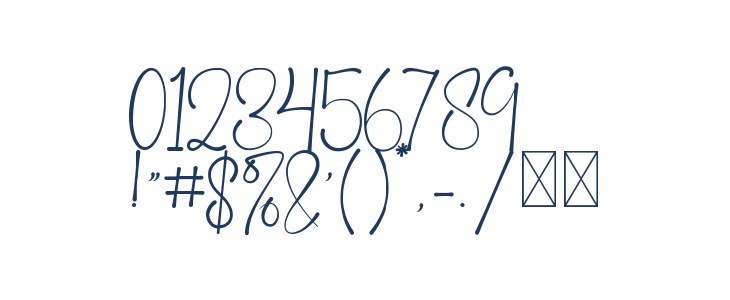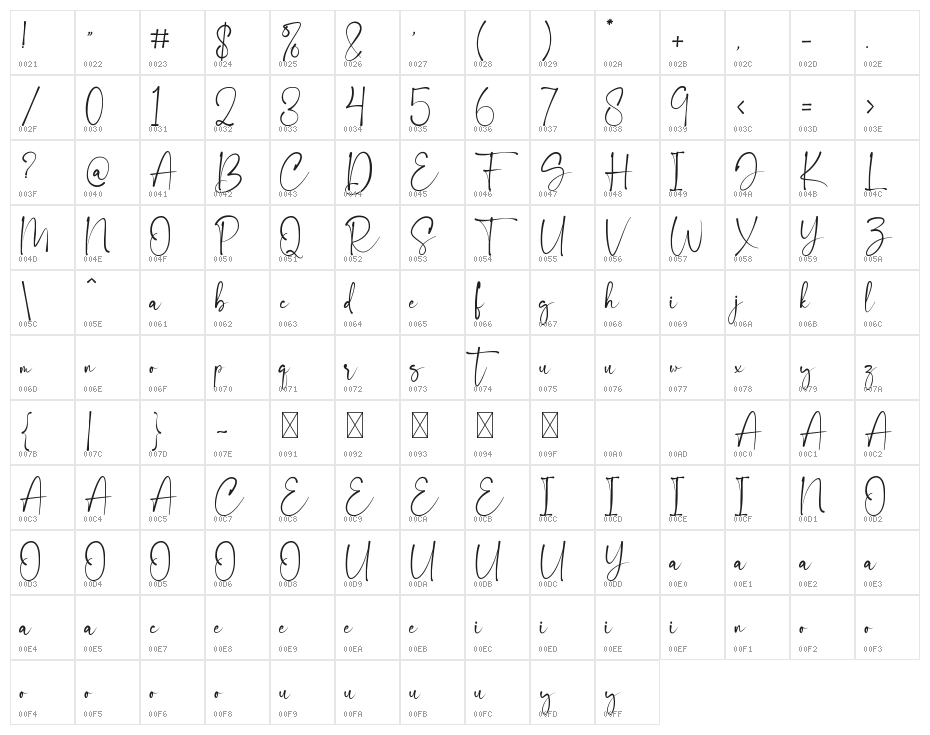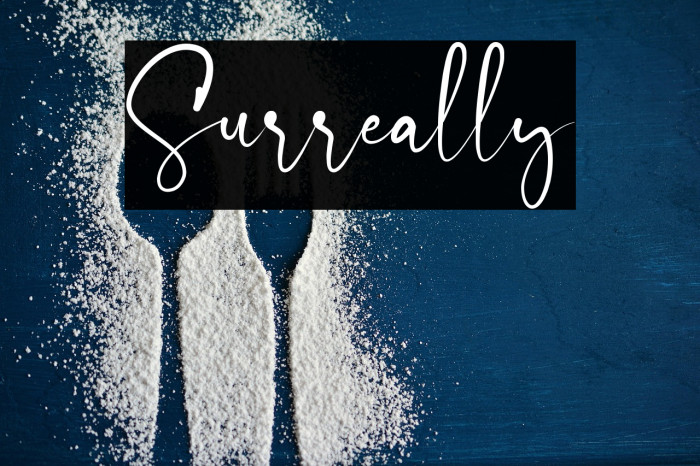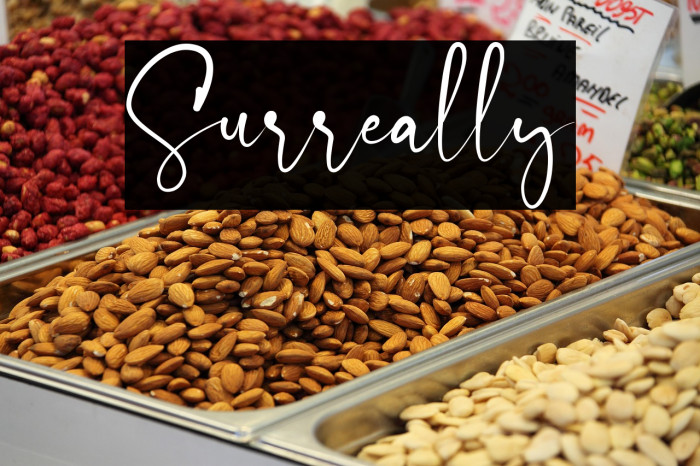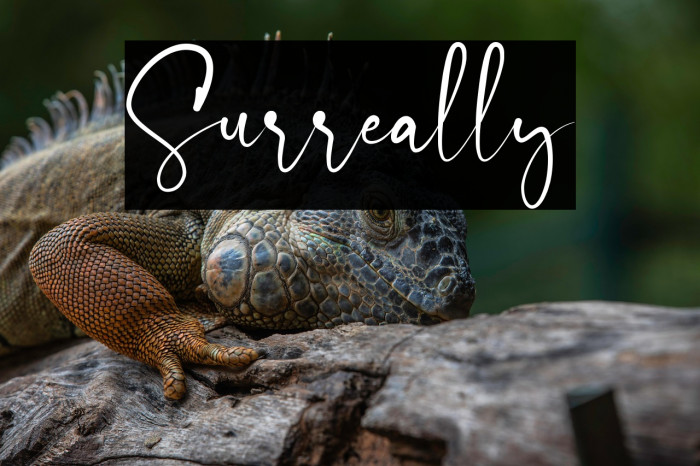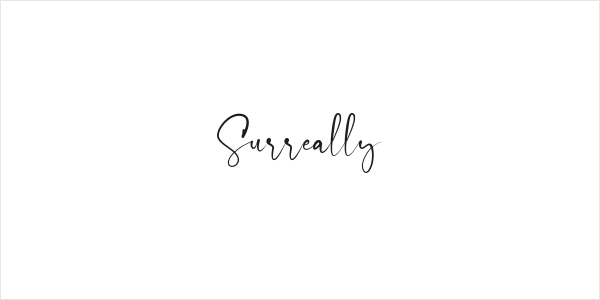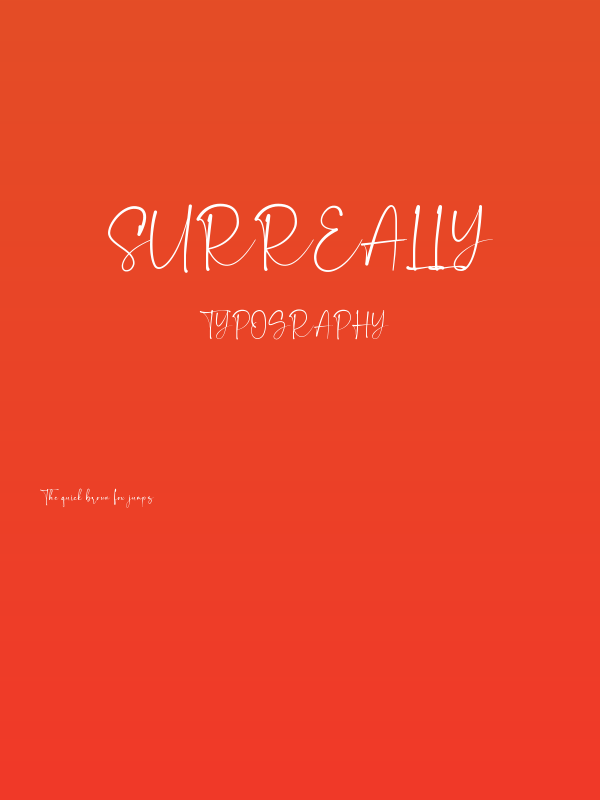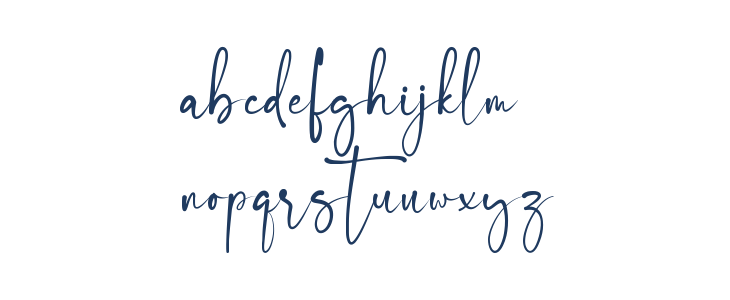
Surreally Font
Surreally Description
This font features a whimsical and artistic script style, characterized by its flowing, interconnected letters and playful loops. The uppercase letters are tall and elegant, with a slight slant that adds a dynamic feel. The lowercase letters maintain a consistent style, with some characters extending below the baseline, adding to the font's charm. Numbers are crafted with the same artistic flair, ensuring a cohesive look across all characters. Special characters are included, each designed with the same attention to detail and creativity. The overall appearance is both sophisticated and approachable, making it suitable for a variety of creative projects.
| Use Case | Logos, Invitations, Artistic designs |
| Proposed Projects | Ideal for wedding invitations, greeting cards, branding, and creative design projects. |